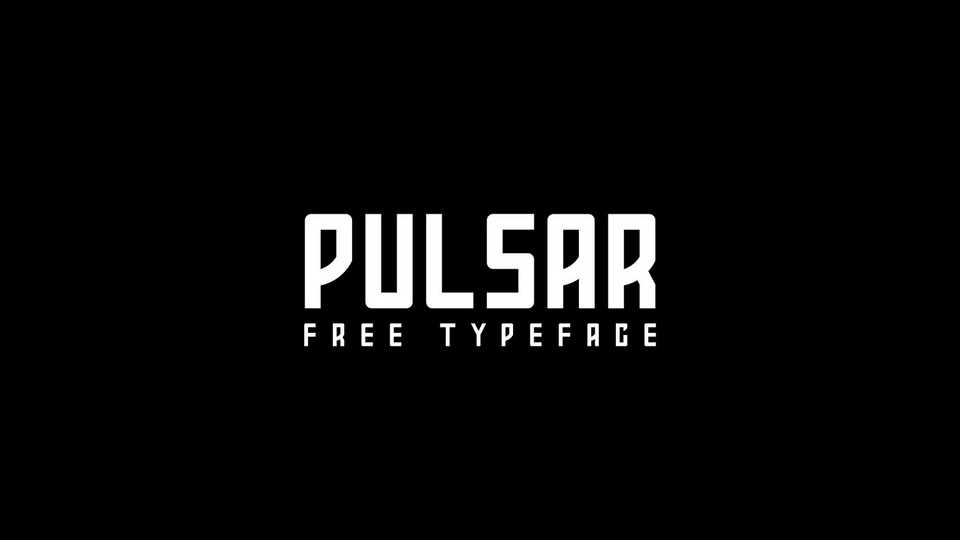
Download Pulsar font, a display sans serif typeface with smooth curves. Pulsar font fits for headlines, posters, short messages and other display use.
Designer: Qaes Al-atoom